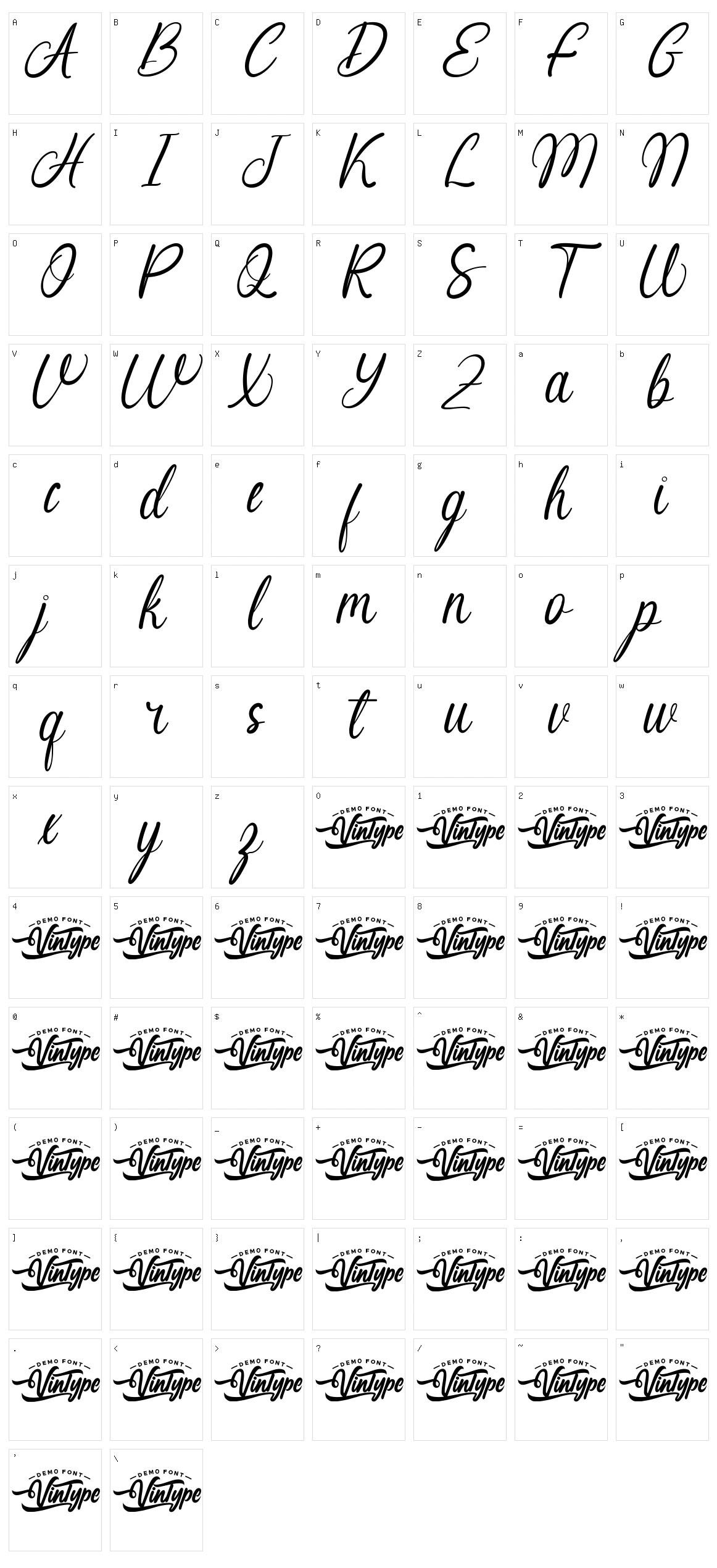
The free font Optimistically is carefully designed by VinType, showcasing a thoughtful balance of creativity and usability and falls under the Script font style. When you download the ZIP file, it contains only 91.38 KB of font files, making it lightweight and quick to download. Please review the license details below to understand permitted usage and distribution rights. If license information is not available, we recommend using this font for personal projects only or contacting the author directly for commercial usage permissions.